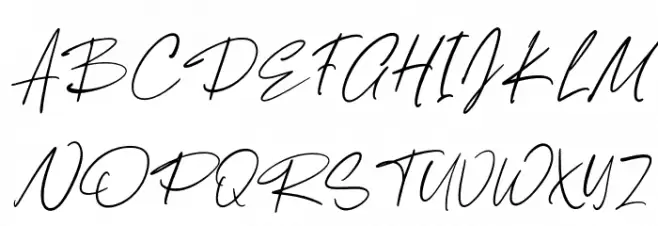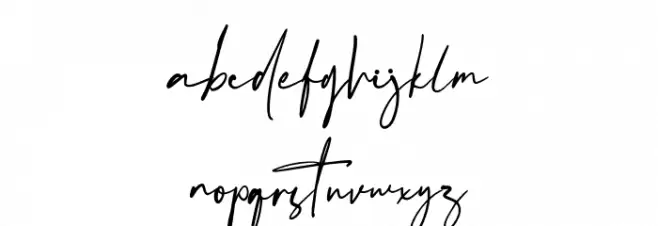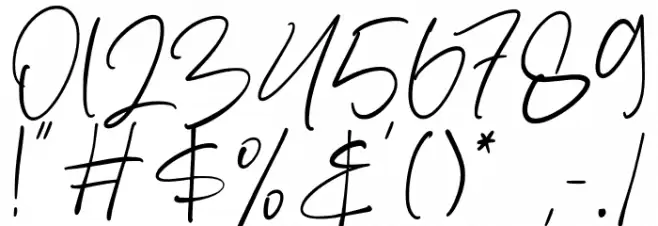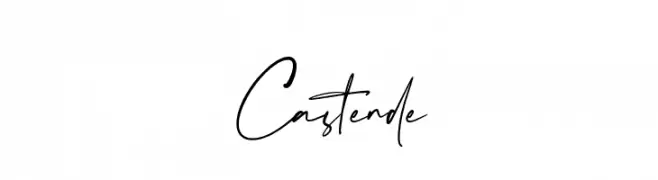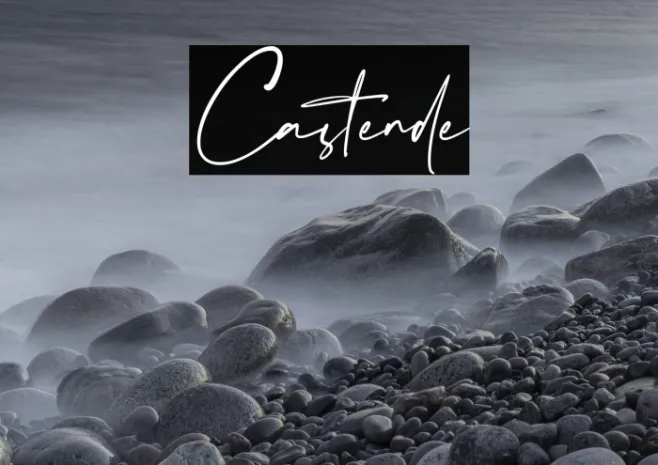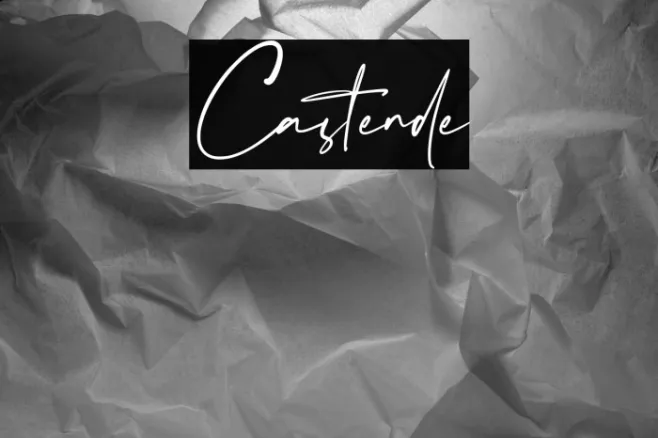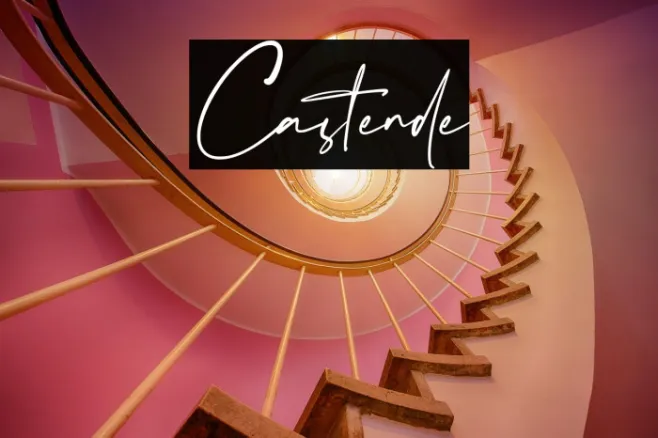
Castende
A flowing, cursive script font with a handwritten style, featuring smooth, connected strokes and a casual elegance.
Elegant cursive script with a handwritten feel.
- Proposed Projects: Invitations, greeting cards, personal branding.
- Category: Script
- Character Spacing: Tight
- Overall Style: Decorative
- Use Case: Logos, Headlines, Invitations